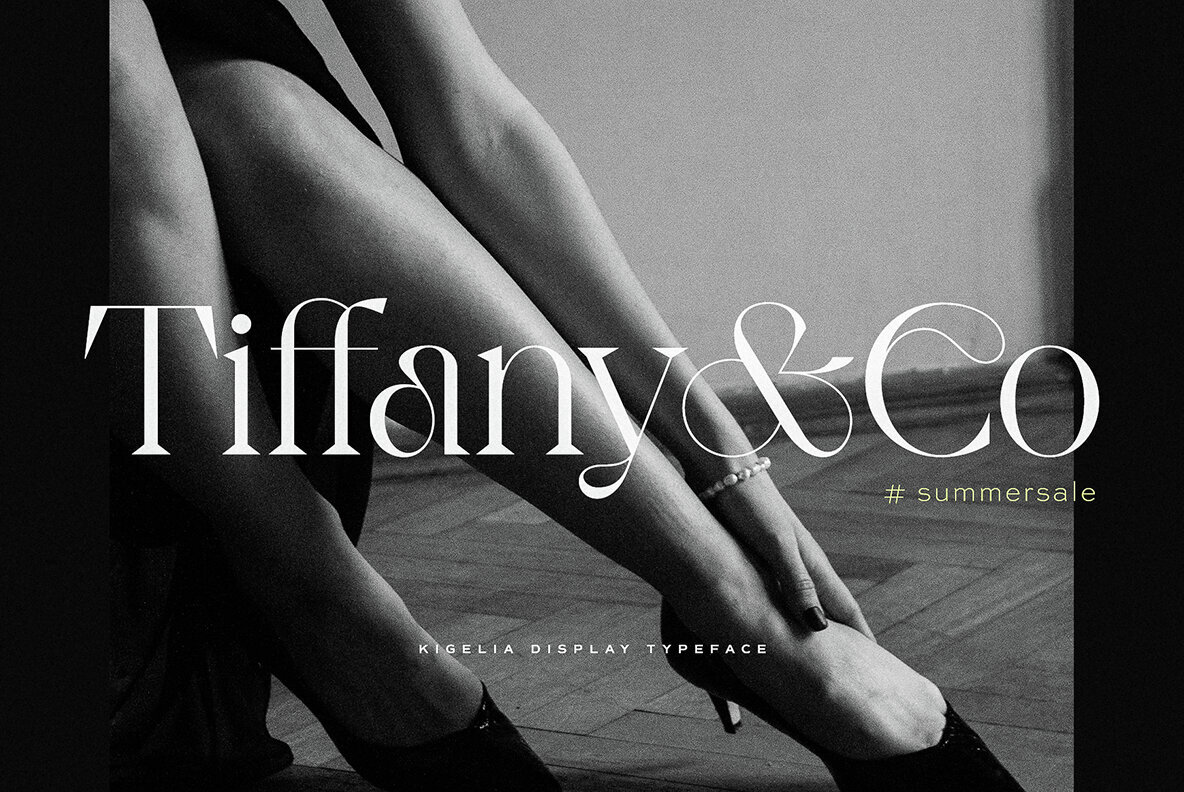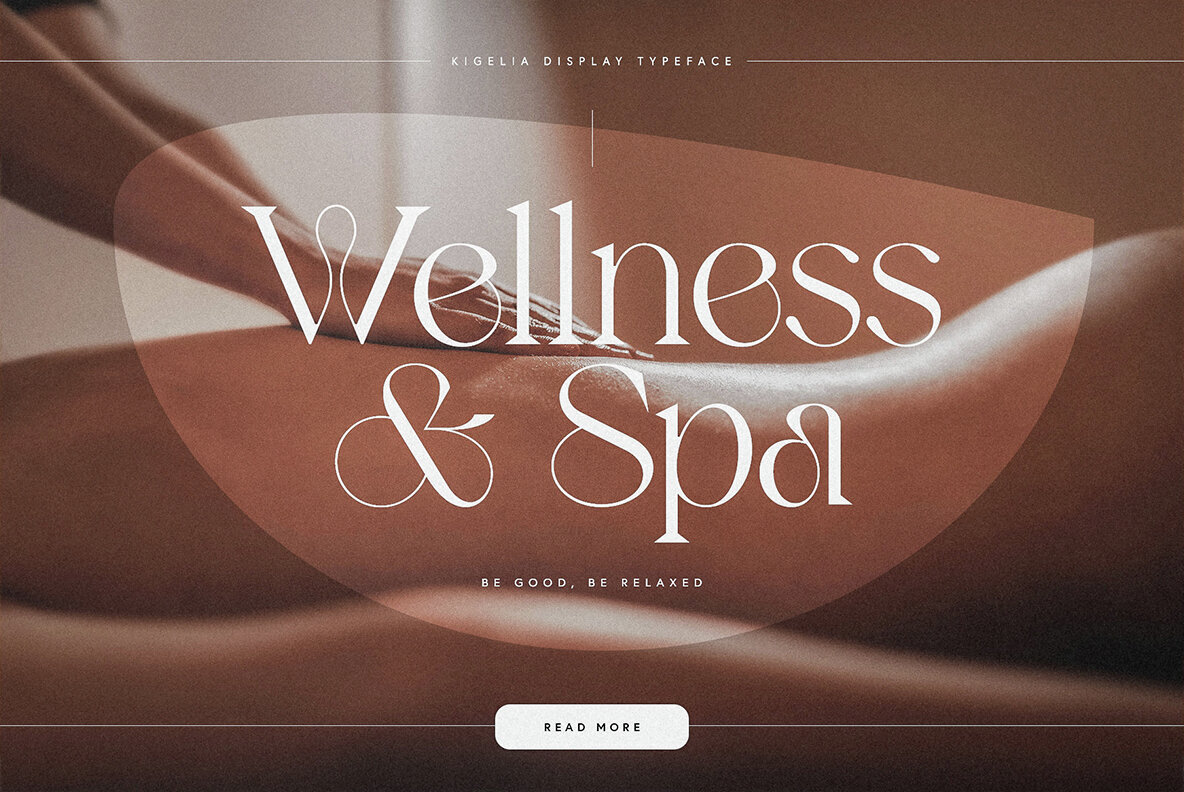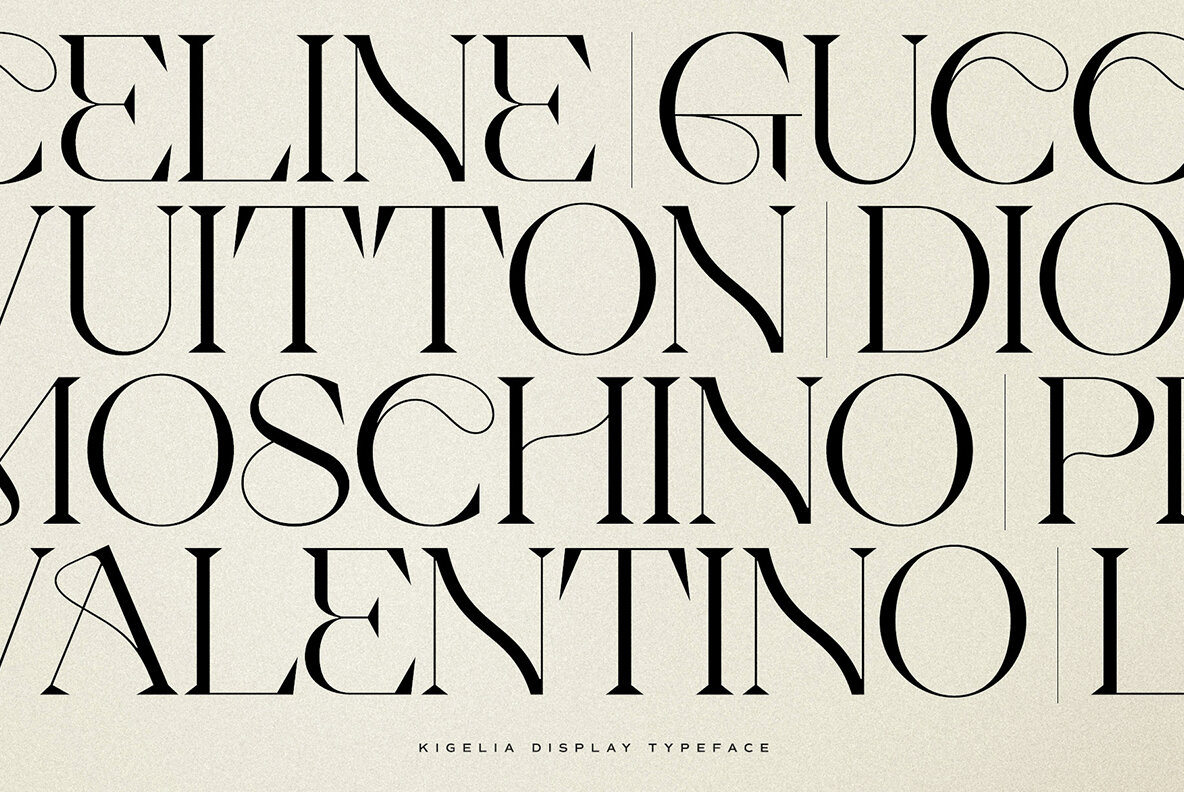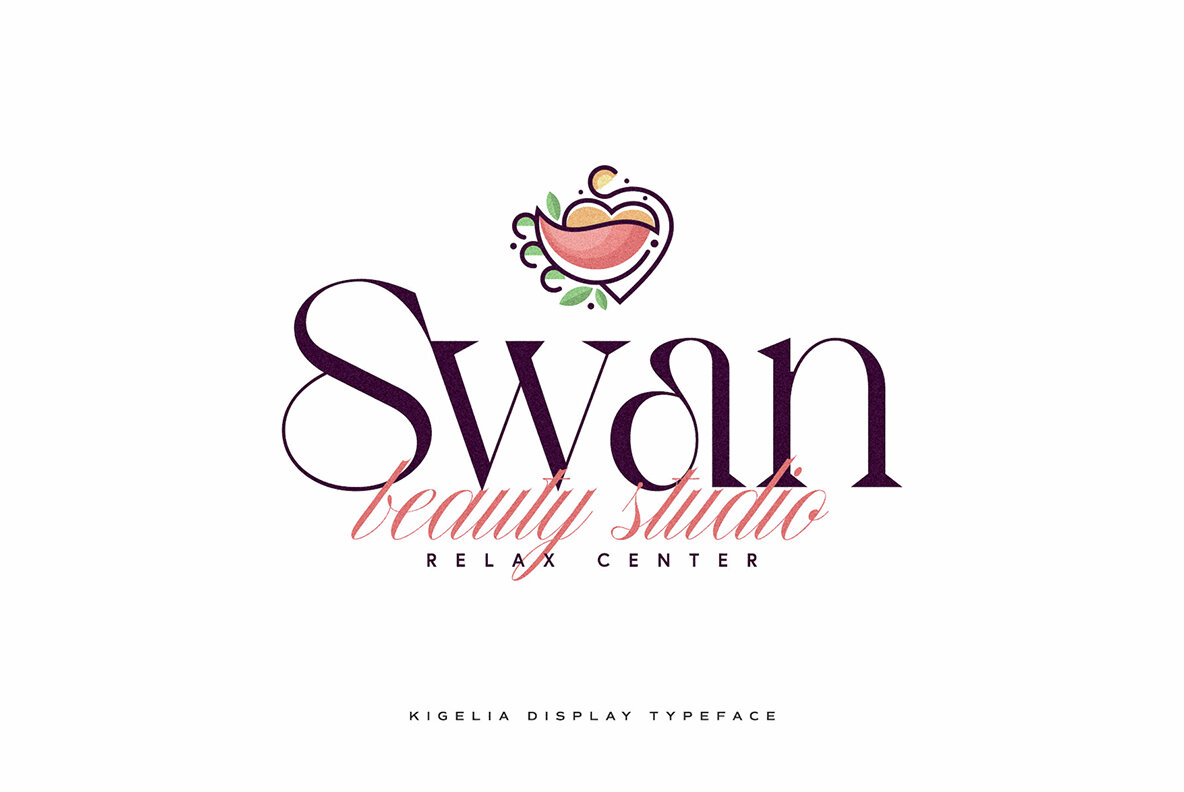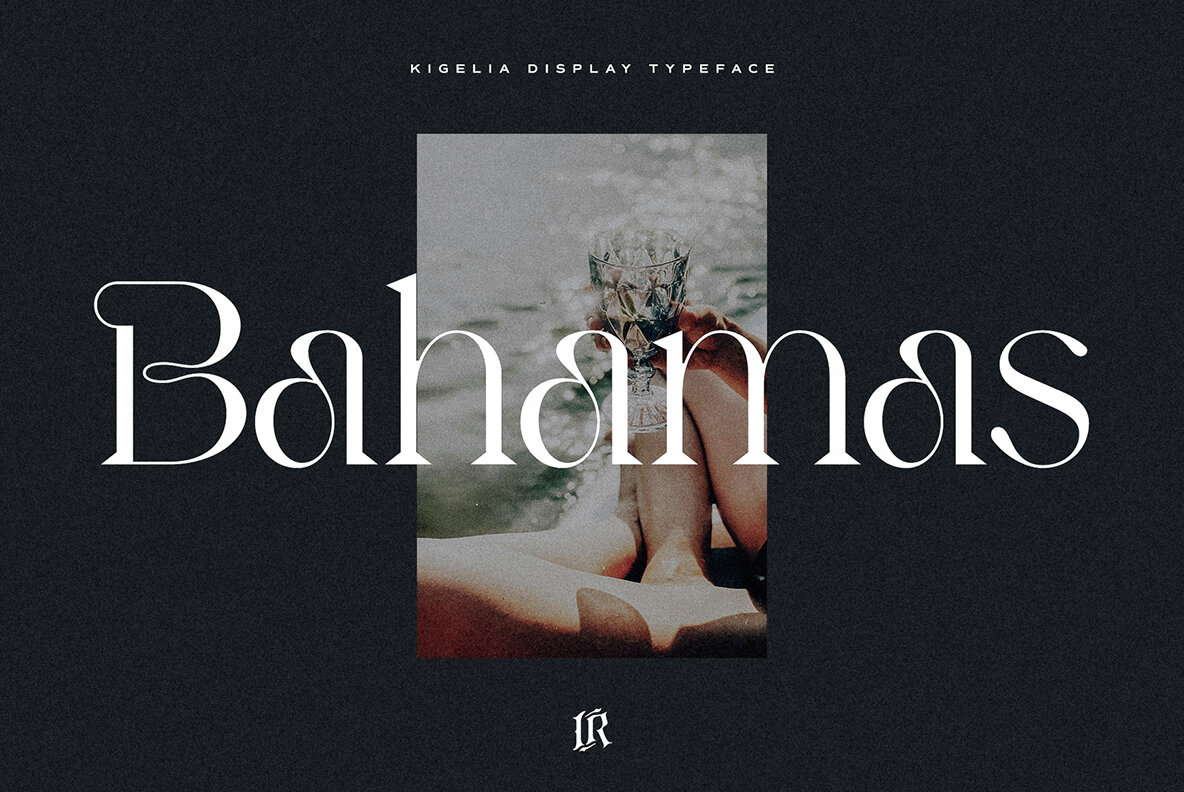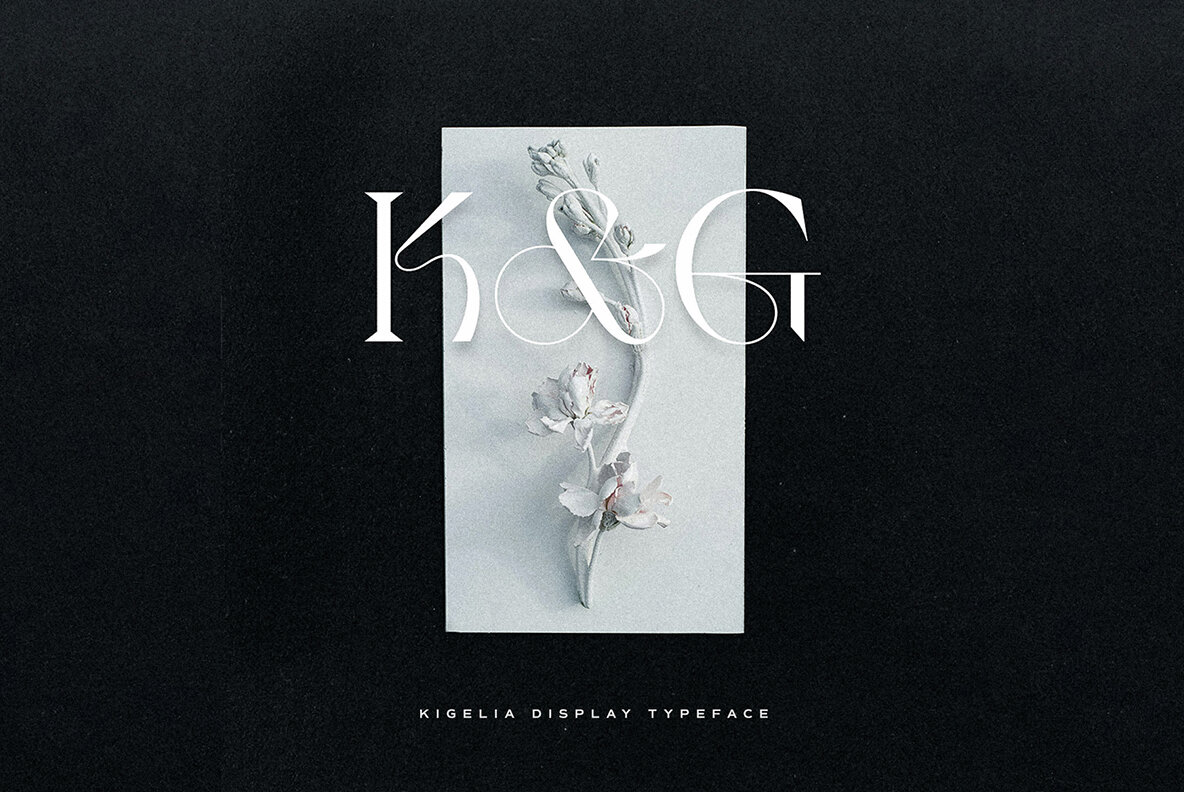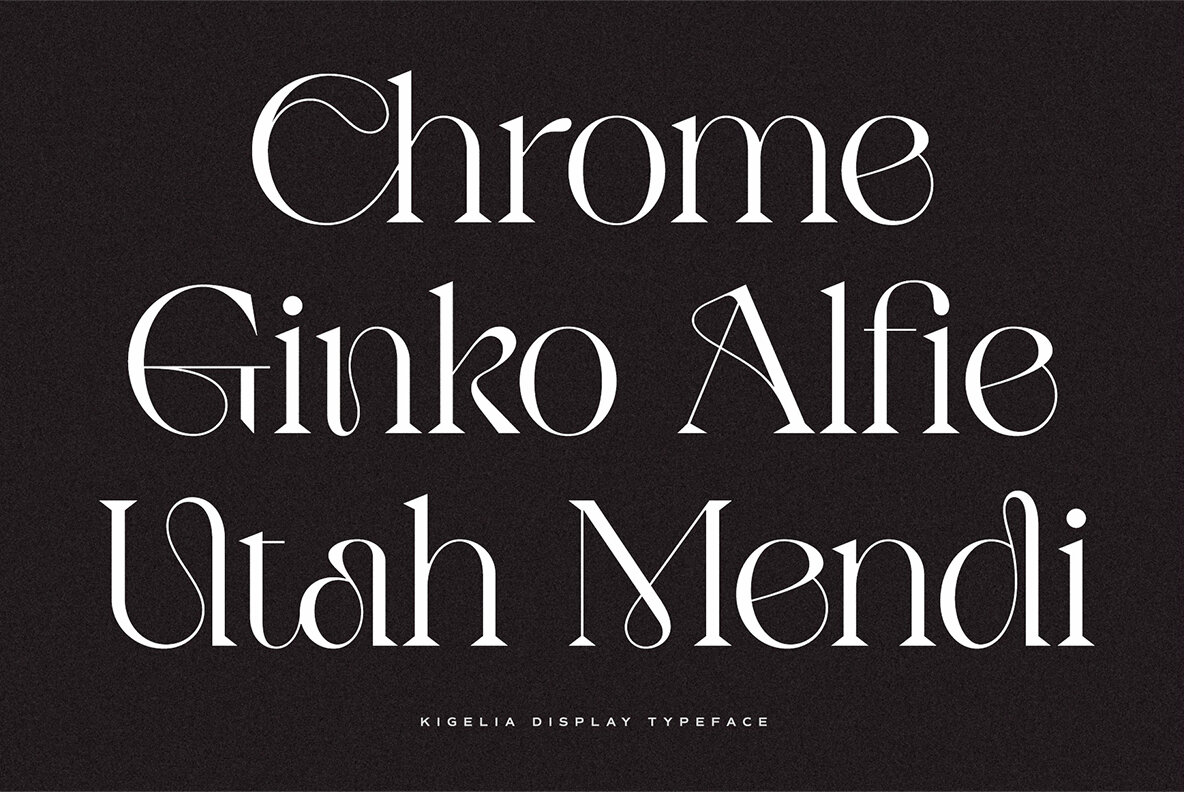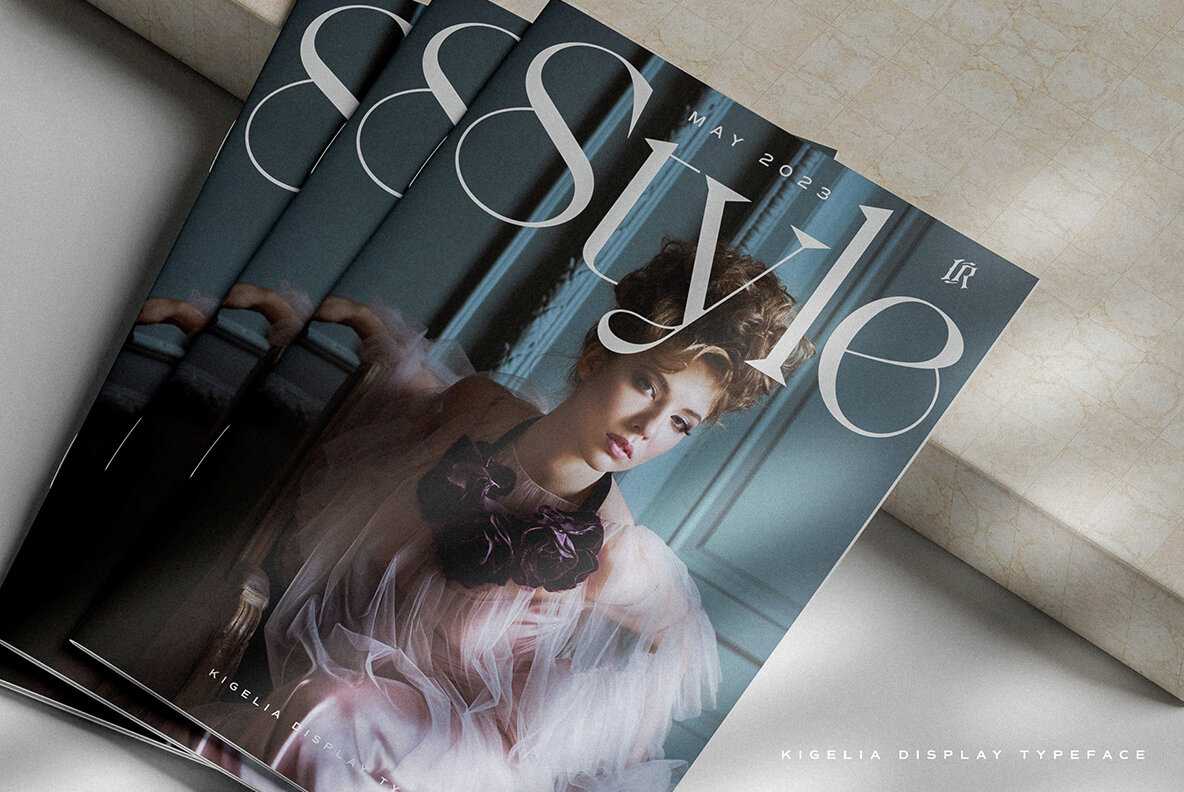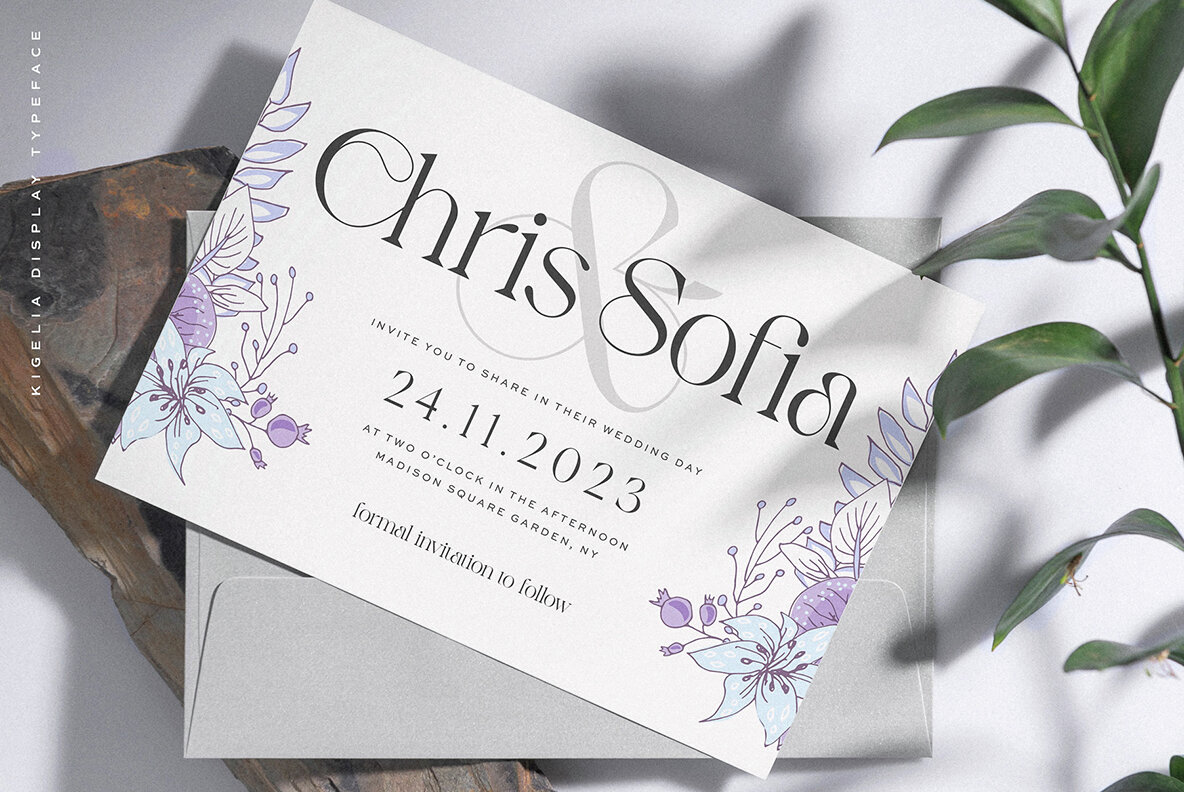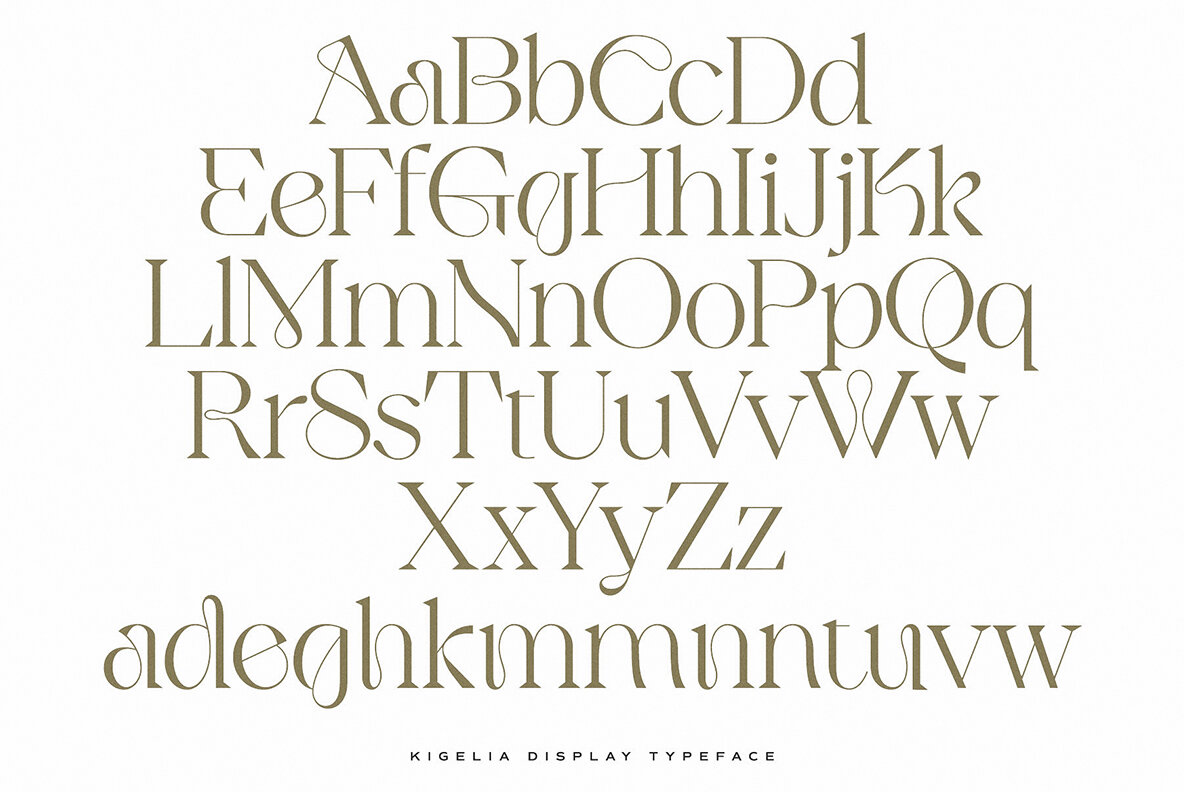
Kigelio Font
Kigelio Regular
Dive into the world of elegance and distinctive typography with Kigelio - an exquisite display serif font by Ivan Rosenberg. Magnificent in its nature, Kigelio has been creatively formulated to encapsulate the flair of high-end fashion magazines and the charm of romantic novelties. Making a stylish splash in the world of short headlines and titles, it claims a unique space of its own in the realm of distinctive typography. But that's not all! Kigelio extends its usability into an array of domains like advertising, vintage mood boards, modern branding, logotypes, exclusive packaging, compelling editorial design, and more. With each curve and contour designed to command attention, Kigelio is not just a font, but an art form in itself, ready to transform any graphic design or marketing project into a masterpiece. Don't miss out on this one-of-a-kind display font that offers both versatility and class in an exceptionally balanced package.Experience the Sophistication of Ivan Rosenberg's Kigelio Serif Font